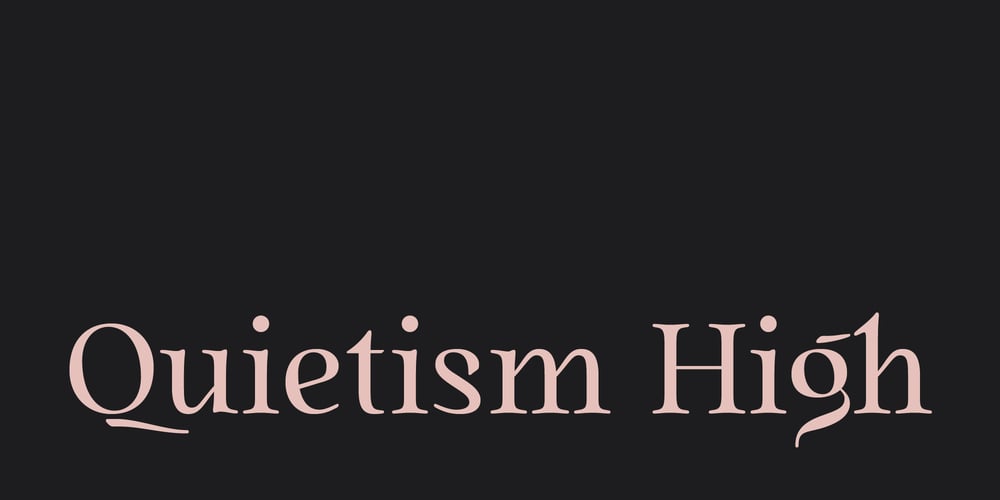
Quietism High Font Family was designed by Michael Rafailyk and published by Michael Rafailyk. Quietism High contains 3 styles and family package options. Quietism High is an experimental subfamily that received a high contrast from Quietism Display and a high x-height from Quietism Text. It’s still a Display typeface, albeit more graceful, wide and open.Other subfamilies: https://www.myfonts.com/collections/quietism-font-michael-rafailykScripts: Latin, Greek, Cyrillic.Languages: 480+The promo images used “Sleeping Venus” painting by Giorgione, “The Creation of Adam” painting by Michelangelo, and “The Piazza and Church of Santa Maria Maggiore” painting by Giovanni Paolo Pannini.